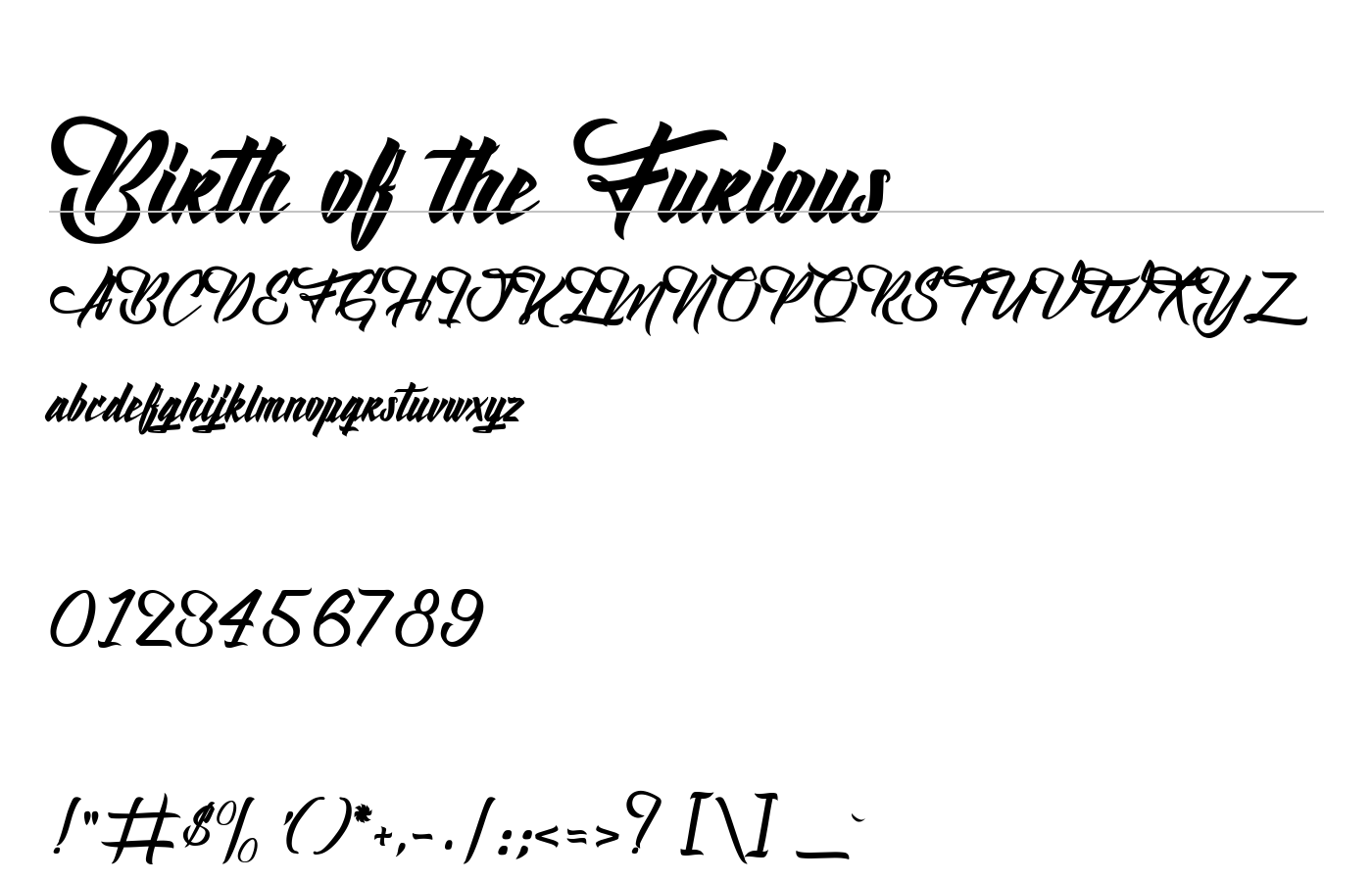
Birth of the Furious is an energetic script font that combines bold, flowing strokes with elegant calligraphic flair, giving it a dynamic and expressive personality. Its high contrast and italic slant create a sense of motion and intensity, making it perfect for eye-catching headlines, branding, or designs that need a dramatic and stylish touch. This font works especially well for creative projects that want to convey passion, strength, and sophistication.
Birth of the Furious Font
About Birth of the Furious Font
| Designer | Octotype |